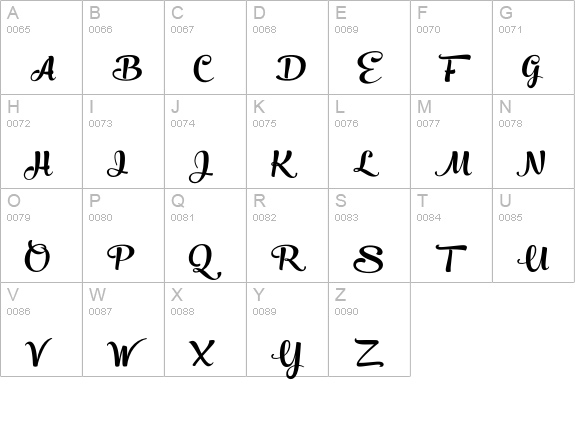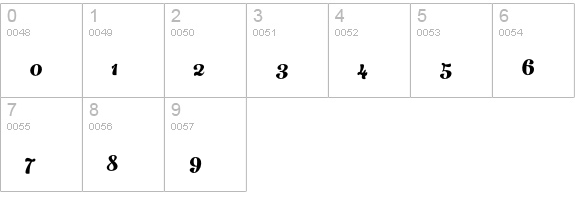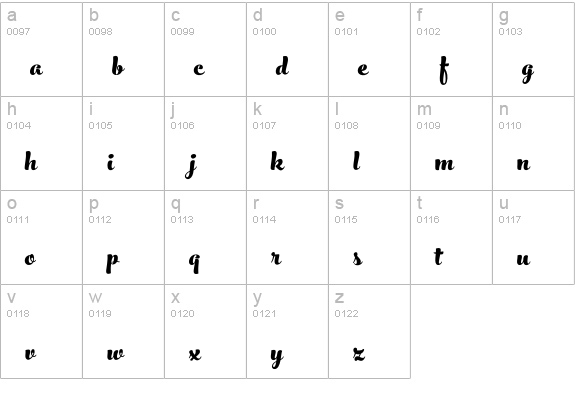
Peaches and Cream Bold is a strong, high-contrast variant in the Peaches typeface family \xE2\x80\x94 well suited to headlines, attention-grabbing titles, and strong calls-to-action.
Peaches and Cream Bold font is a delightful and stylish typeface that exudes elegance and charm. With its smooth curves and bold strokes, this font is perfect for creating eye-catching designs that demand attention. The unique blend of sweetness and sophistication makes Peaches and Cream Bold font a versatile choice for a wide range of projects. Best of all, Peaches and Cream Bold font is available for free download at FontsMarket.com. Whether you're working on a branding project, a wedding invitation, or a social media graphic, this font will add a touch of class and flair to your design. Don't miss out on the opportunity to enhance your creations with this beautiful and free typeface. Download Peaches and Cream Bold font today and elevate your design aesthetic to the next level!